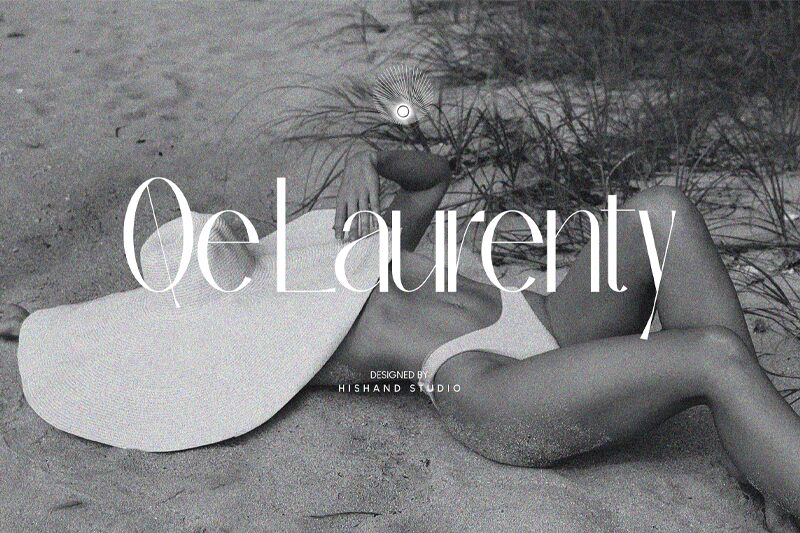
Qe Laurenty font by Hishand Studio offers a sleek and modern sans serif style, characterized by its light weight and condensed form. This elegant typeface exudes sophistication, making it an ideal choice for high-end design projects requiring a touch of refinement.
The understated elegance of the Qe Laurenty font lends itself beautifully to luxury branding, editorial layouts, and minimalist websites. Its unique aesthetic appeal ensures that any text crafted with this free font stands out with clarity and style.